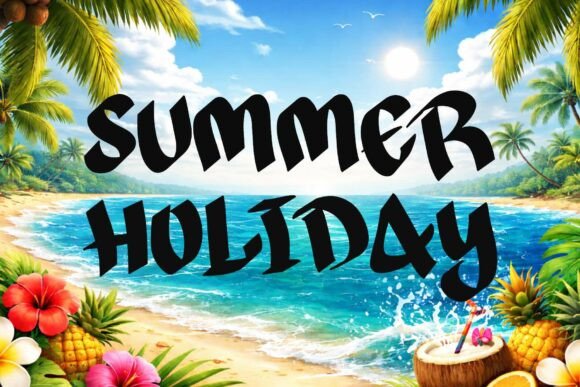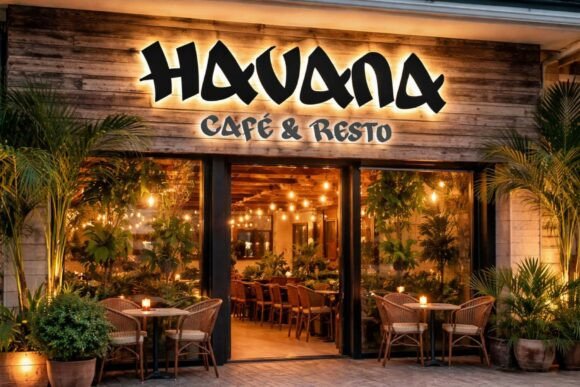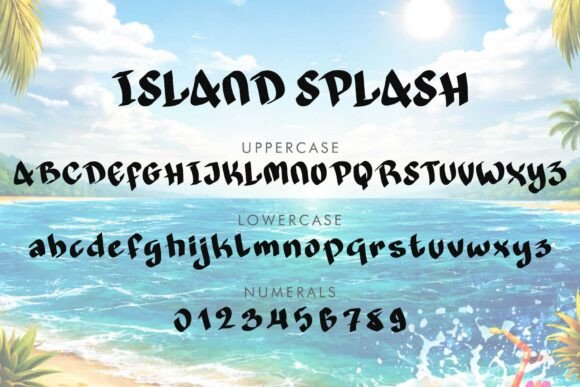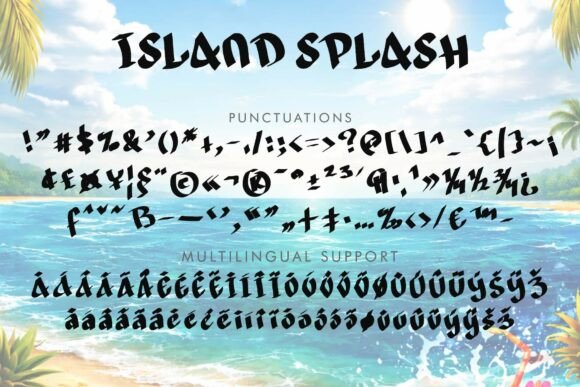
Introduction to Island Splash Font
“Island Splash” is a fun display font.
It features uppercase and lowercase letters, numbers, punctuation, and multilingual support It’s perfect for action movie titles, Halloween, Christmas, Easter, spring and summer, banners, branding, stickers, logos, patriotic text, back to school text, business branding, screen printing, tshirt designs, and more.
Key Features of Island Splash Font
Island Splash Font offers exceptional quality and versatility, making it a valuable addition to your design toolkit. Whether you’re creating for personal projects or commercial use, Island Splash Font delivers professional results.